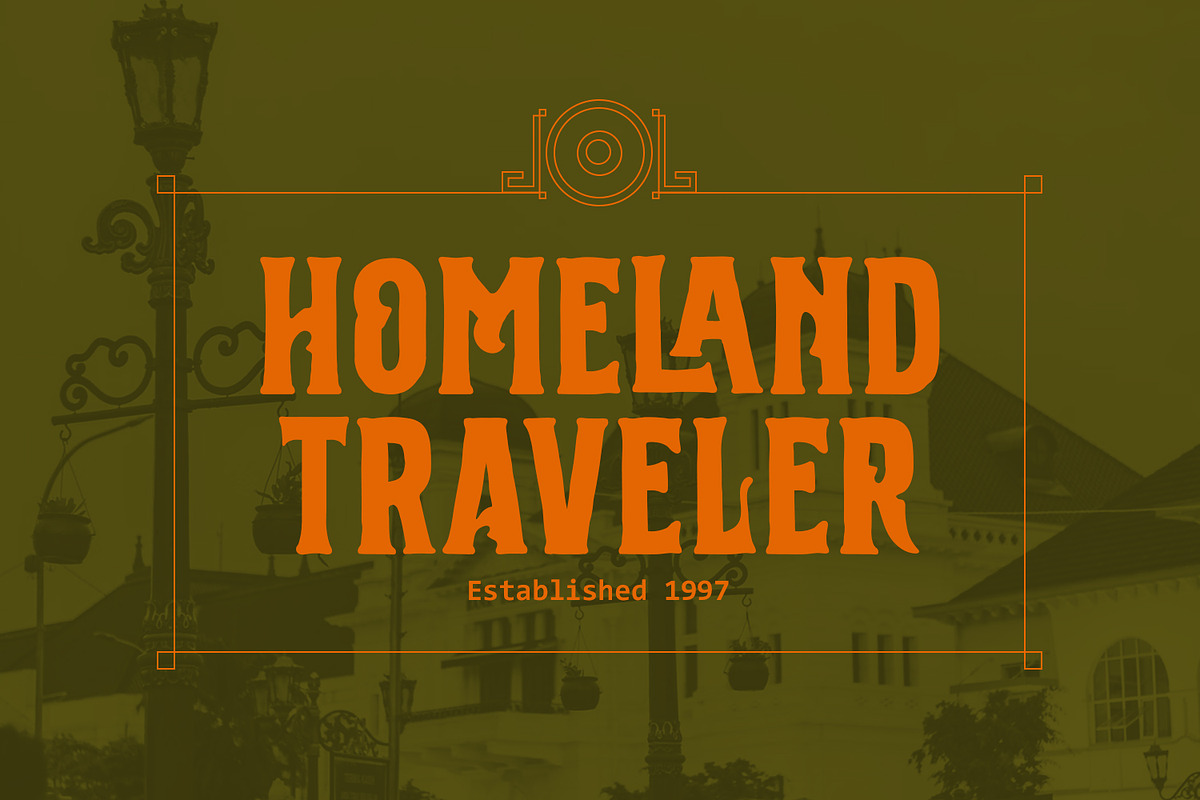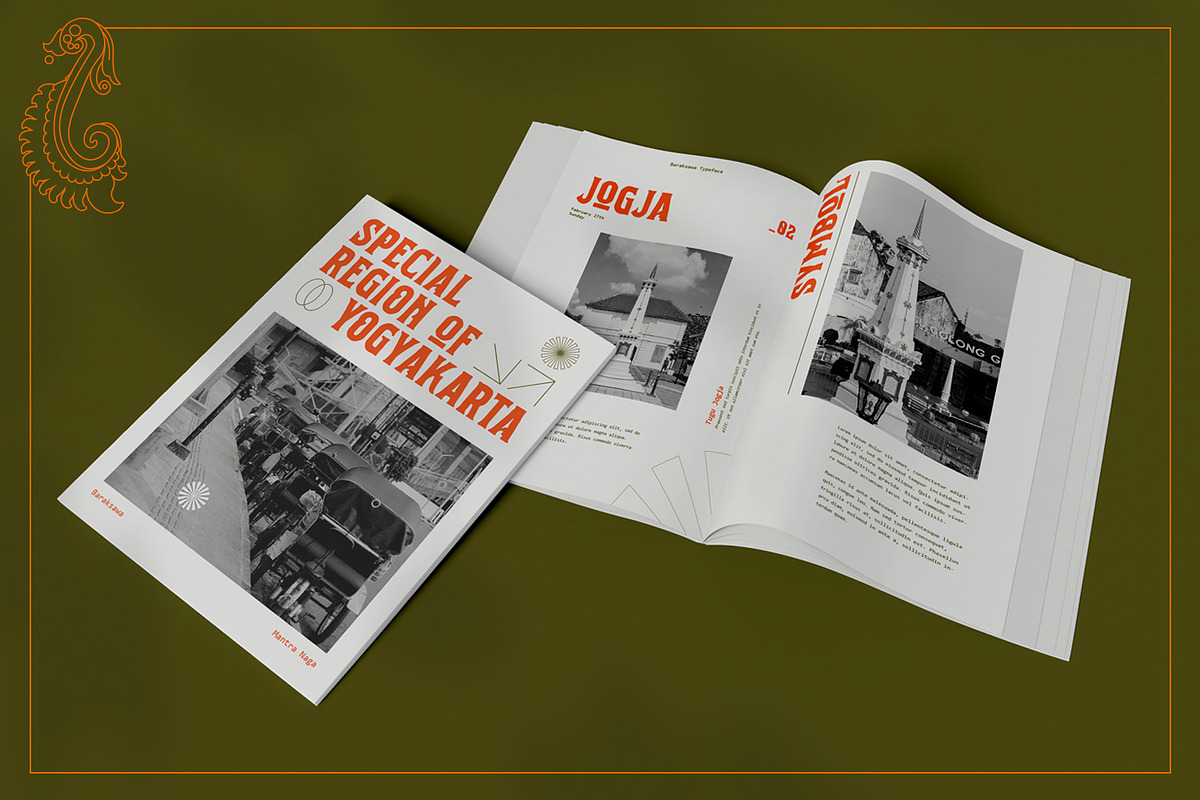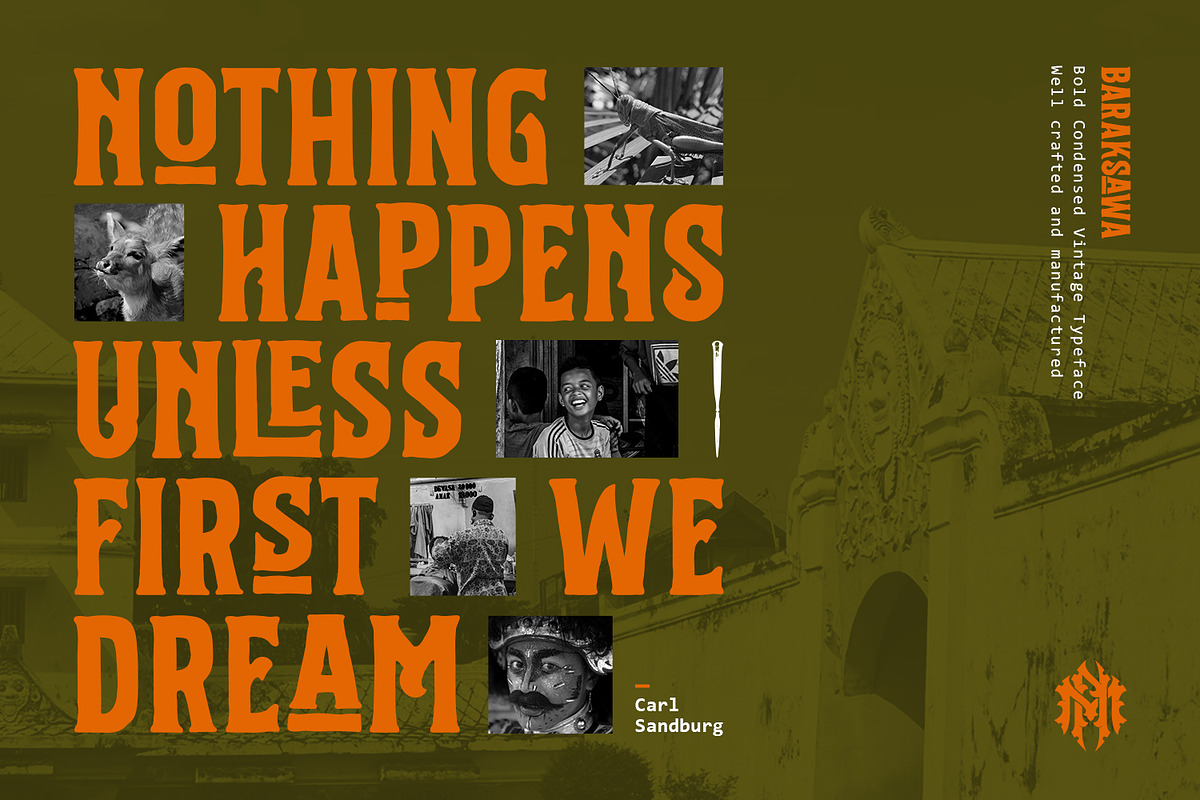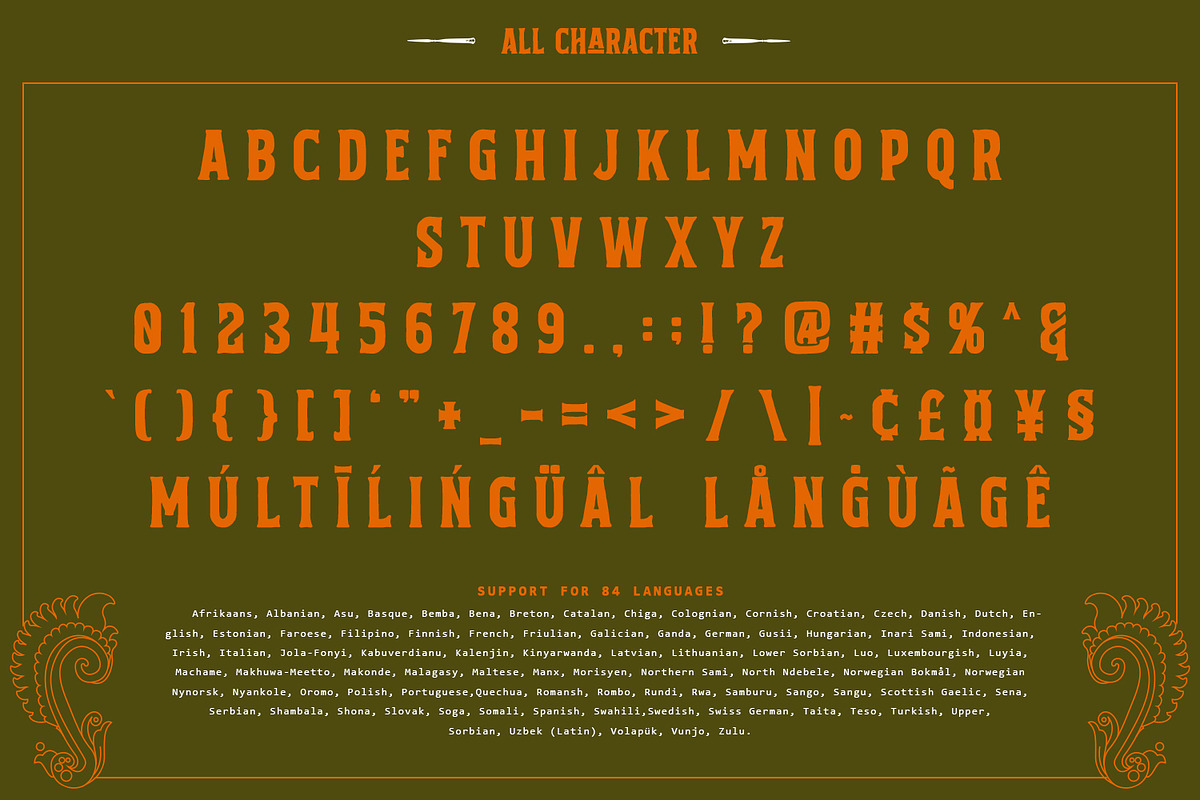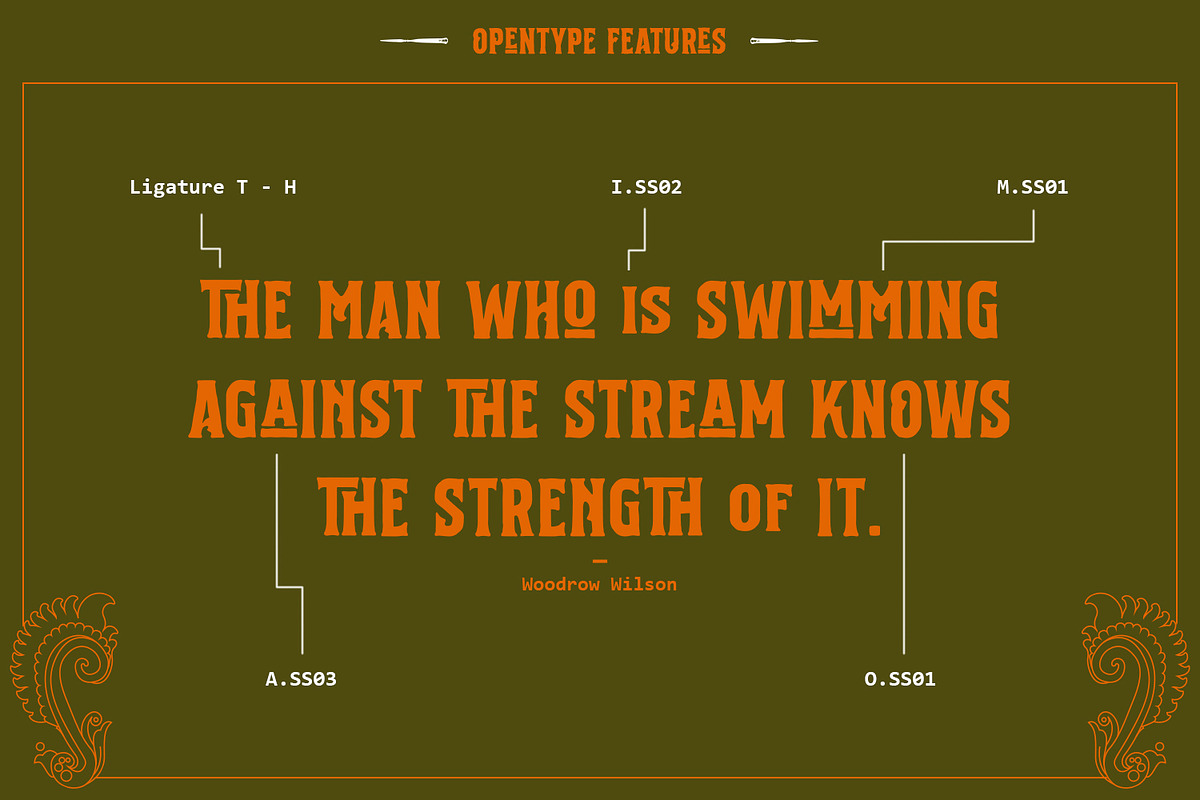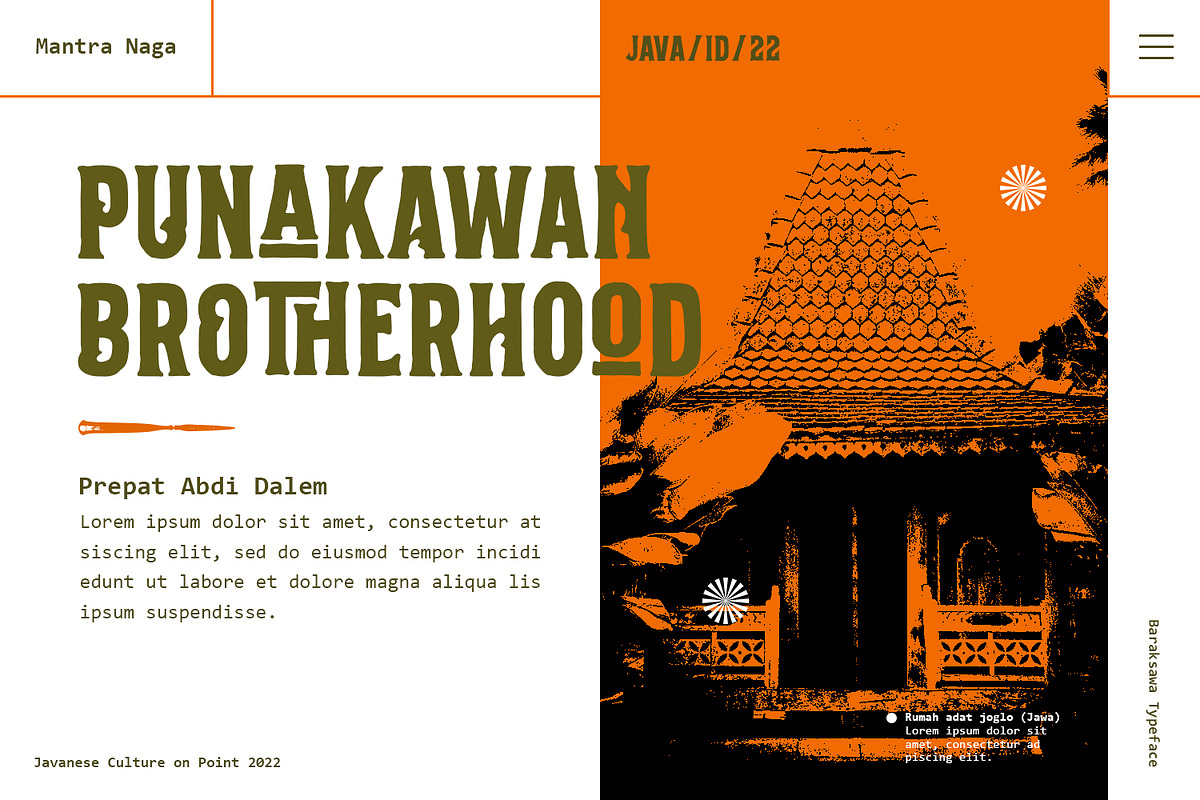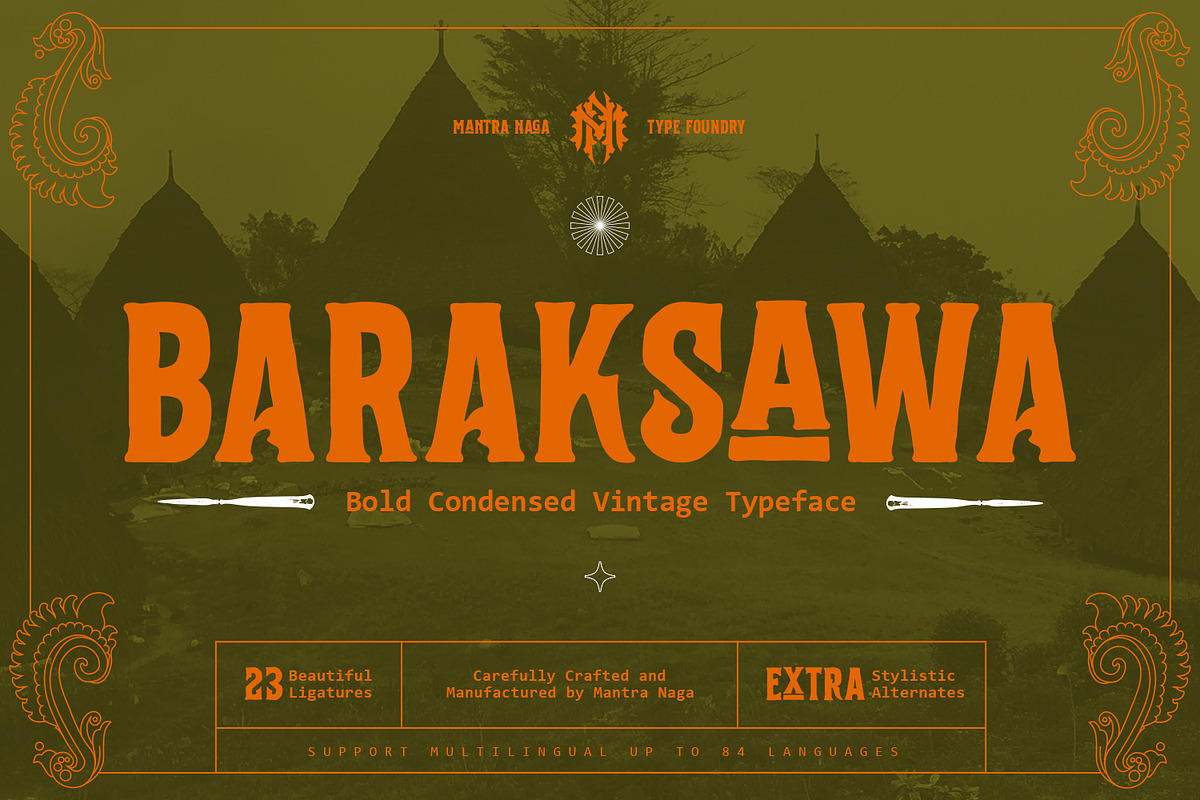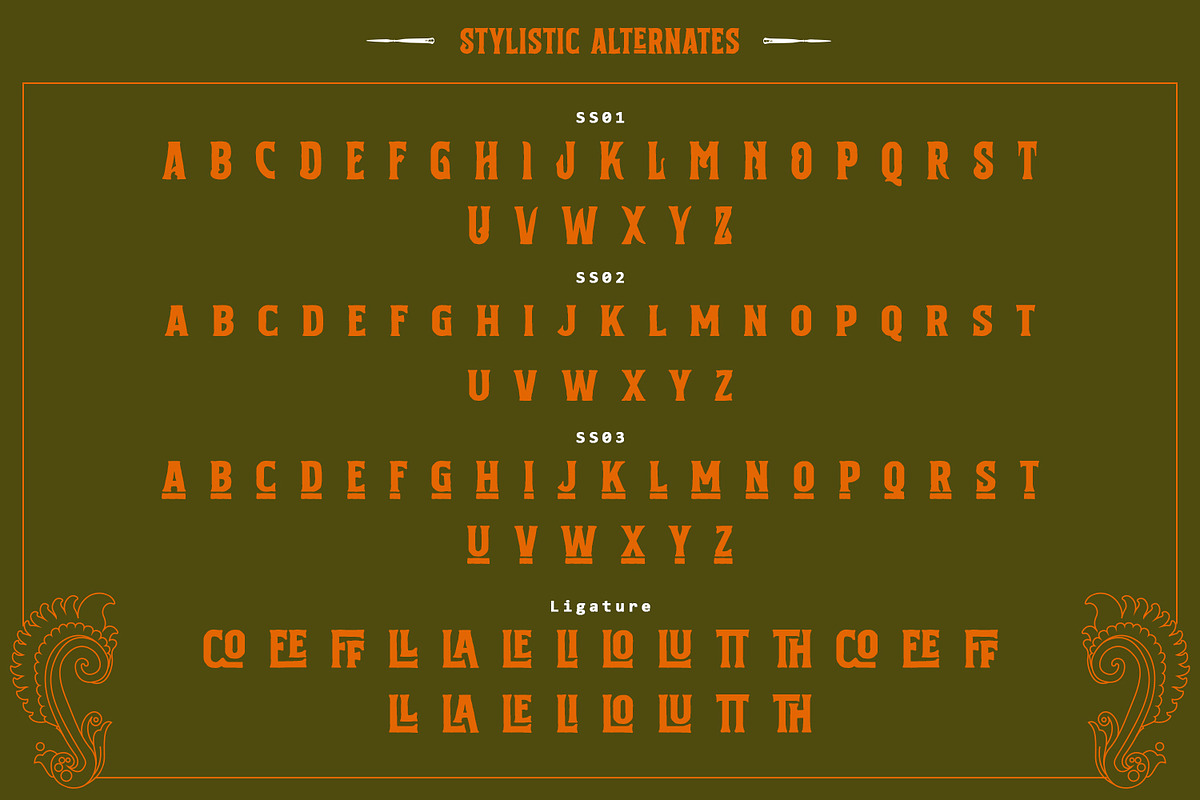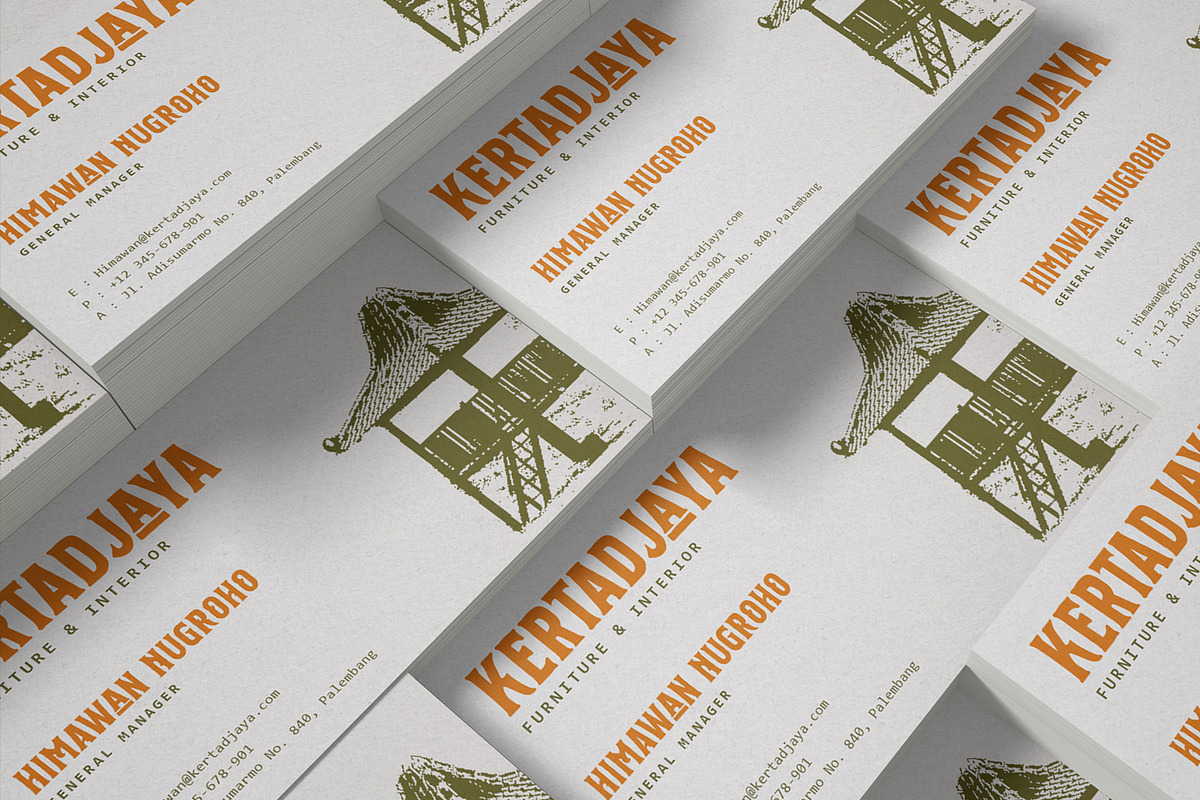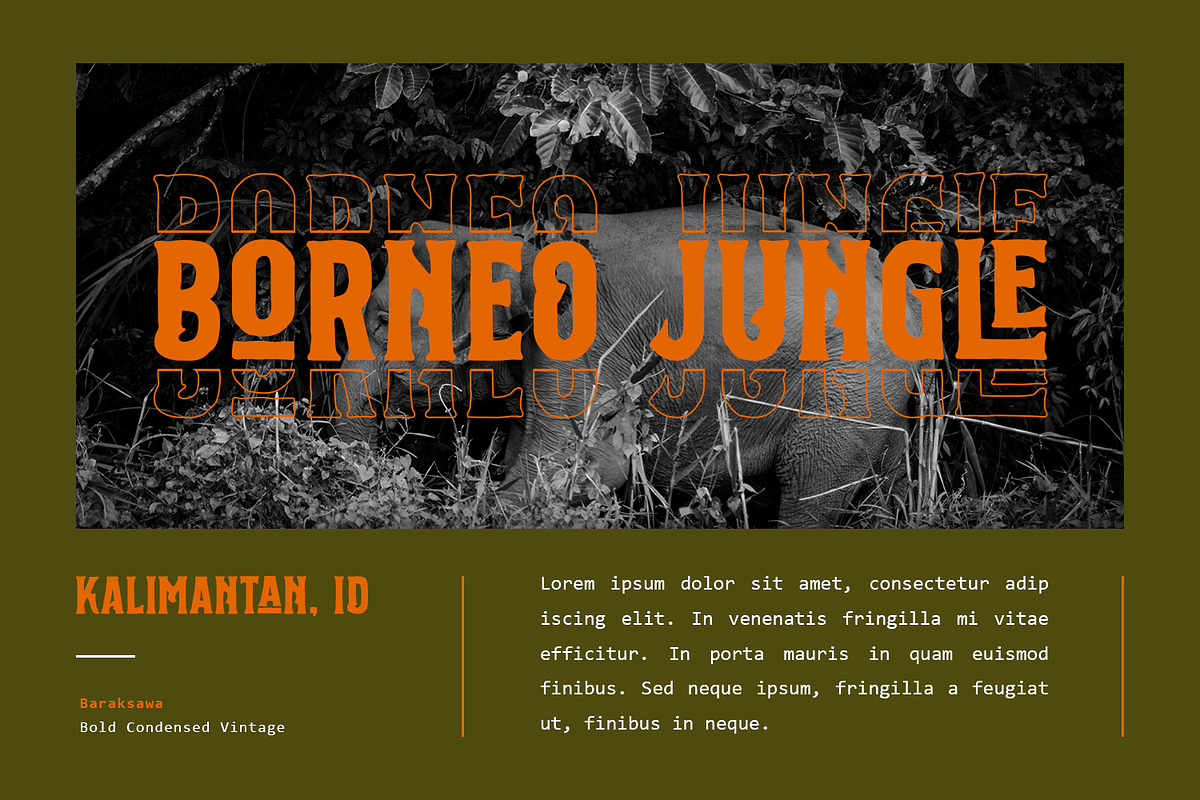
Baraksawa - Bold Condensed Vintage
Baraksawa Bold Condensed Vintage. This typeface has many alternatives with swashes that can make your lettering/logotype more attractive. Bold serifs and grainy effects make this font even more unique.
This font is very suitable to be applied, especially to logos, and various other formal forms such as invitations, labels, logos, magazines, books, greeting / wedding cards, packaging, fashion, make up, stationery, novels, labels or any type. advertising purposes.
Feature:
- multilingual support
- ligature
- alternative
- swashes